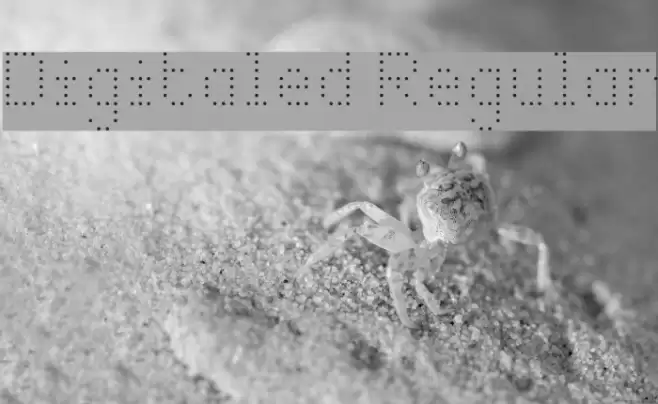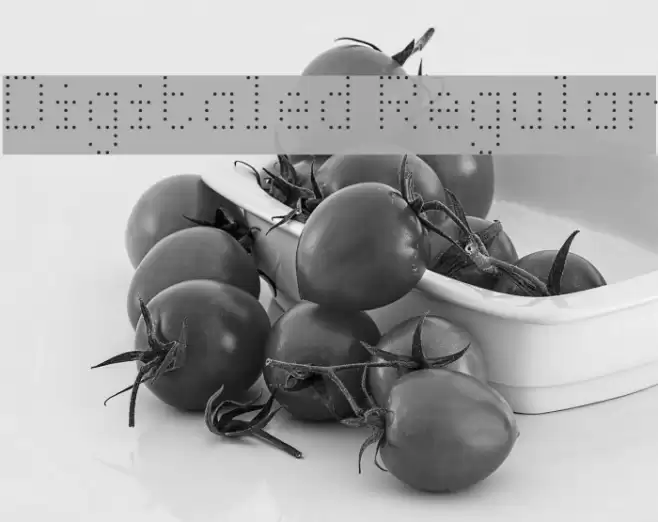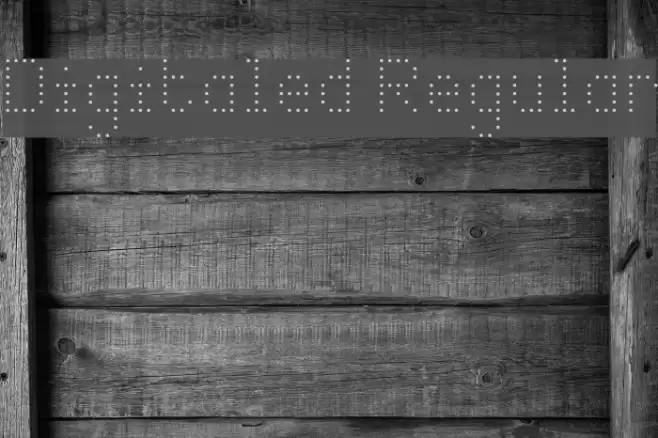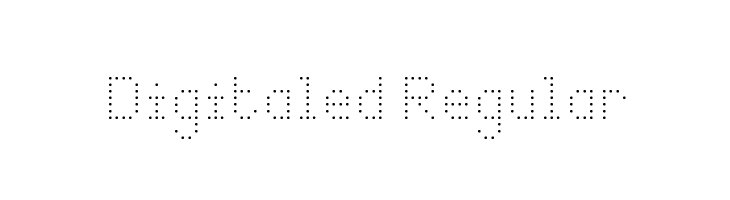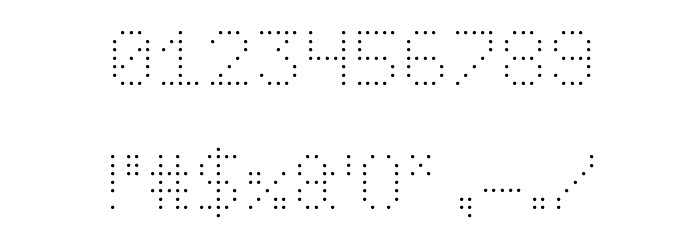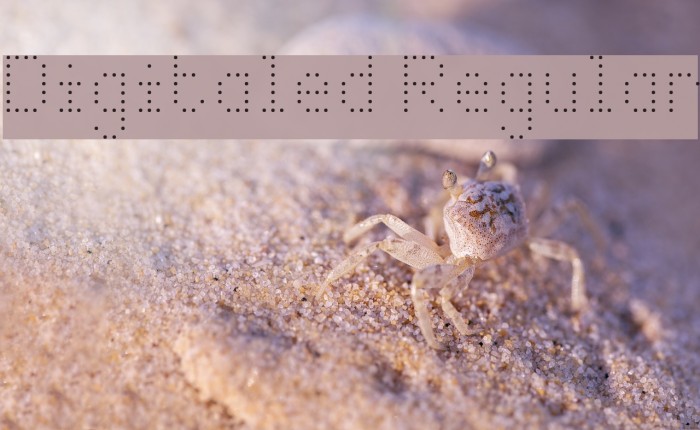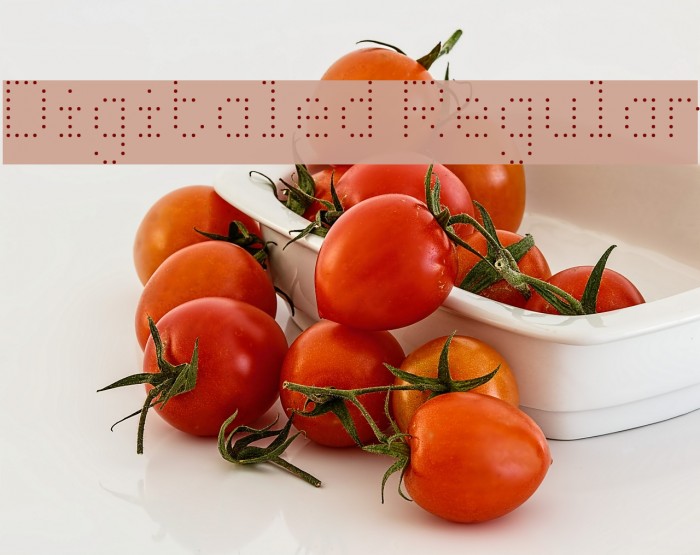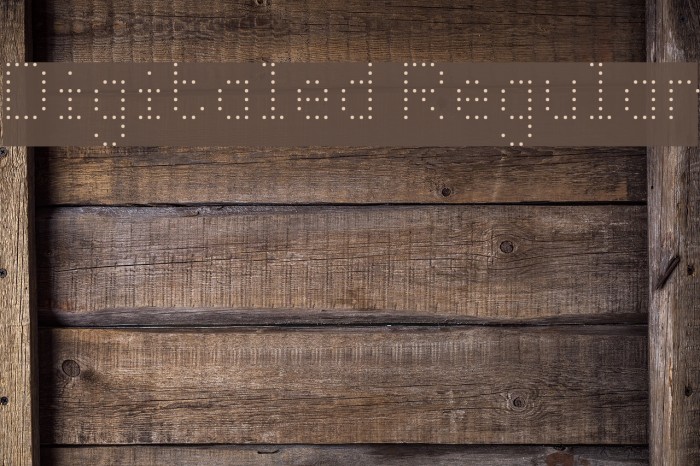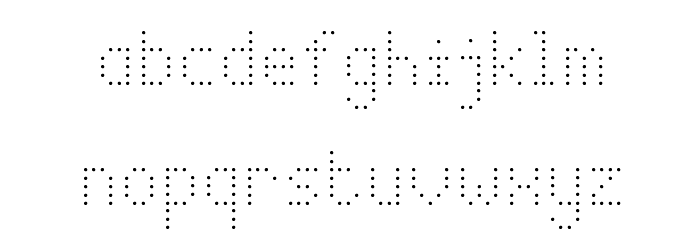
Digitaled Regular Font
Digitaled Regular Description
This font features a unique dotted style, where each character is composed of small, evenly spaced dots. The design is geometric and structured, giving it a digital or electronic feel reminiscent of LED displays or dot matrix printers. The uppercase and lowercase letters maintain a consistent height and width, creating a uniform appearance. Numbers and special characters follow the same dotted pattern, ensuring cohesion across all elements. This font is highly legible despite its unconventional form, making it suitable for creative and modern applications.
A dotted, geometric font with a digital, electronic aesthetic from Uncategorized fonts.
- Proposed Projects: Ideal for digital displays, tech-themed designs, modern art projects, and creative branding.
- Use Case: Logos, Headlines, Digital displays